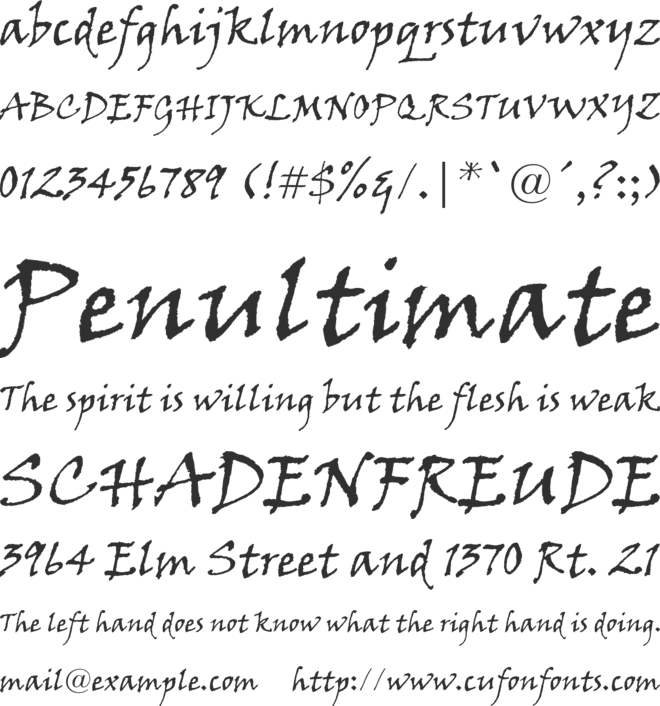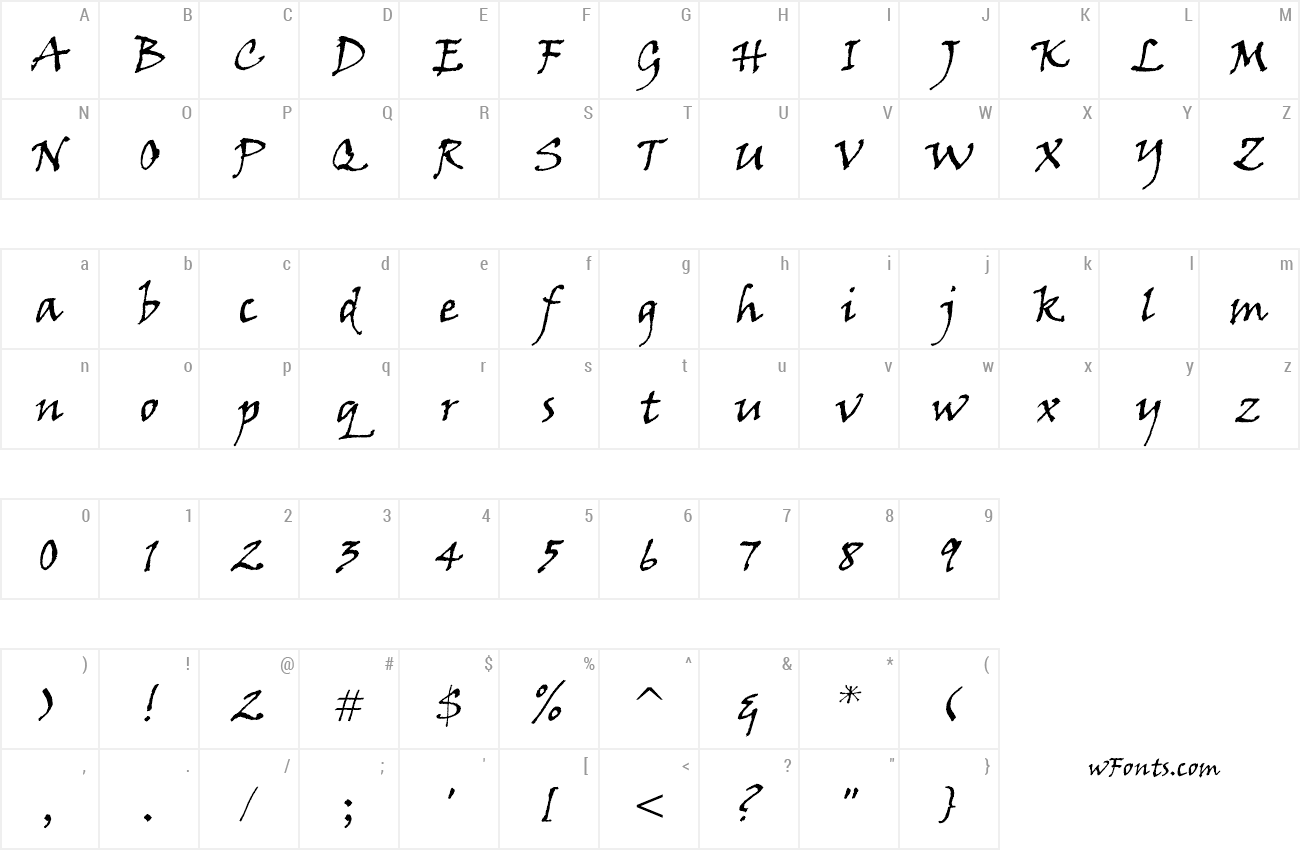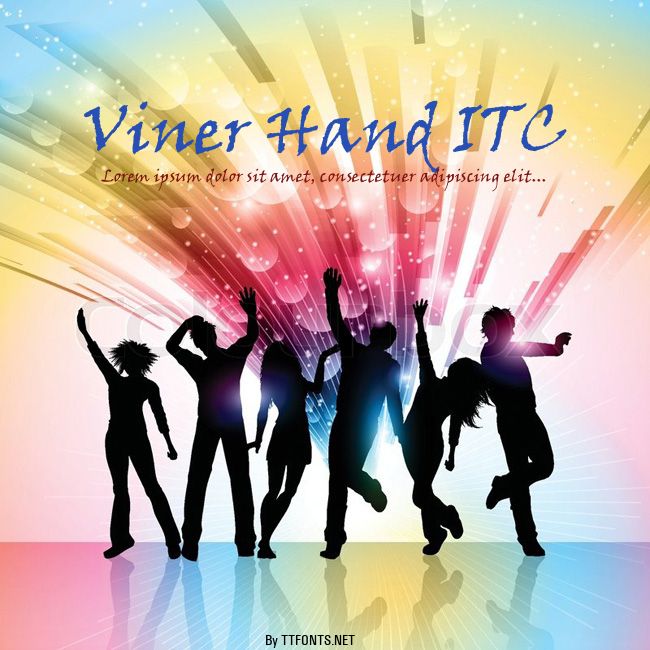
Viner Hand Itc Font
Viner Hand Itc Font - You can find more information. It has been downloaded 44 times. View sample text, character map, user rating and review for viner hand itc regular. Web introducing viner hand itc font. This is an awesome free script font available for free. Web newly added fonts. Download viner hand itc regular for free. Web viner hand itc std regular is a regular opentype font. This font is a multipurpose font and it can be used almost anywhere the user want. Is an informal script face that is based on the handwriting of british designer john viner.
1 users have given the font a rating of 5.0 out of 5. You can find more information. View sample text, character map, user rating and review for viner hand itc regular. Viner learned the craft of brush lettering. This is an awesome free script font available for free. Download viner hand itc regular for free. This font is a multipurpose font and it can be used almost anywhere the user want. Web introducing viner hand itc font. Moreover, you can embed it to your. It has been downloaded 44 times.
View sample text, character map, user rating and review for viner hand itc regular. Viner learned the craft of brush lettering. 1 users have given the font a rating of 5.0 out of 5. Download viner hand itc regular for free. Is an informal script face that is based on the handwriting of british designer john viner. Web introducing viner hand itc font. You can find more information. This font is a multipurpose font and it can be used almost anywhere the user want. Web viner hand itc std regular is a regular opentype font. Web newly added fonts.
Web newly added fonts. Is an informal script face that is based on the handwriting of british designer john viner. This font is a multipurpose font and it can be used almost anywhere the user want. Download viner hand itc regular for free. It has been downloaded 44 times.
You can find more information. View sample text, character map, user rating and review for viner hand itc regular. Download viner hand itc regular for free. Viner learned the craft of brush lettering. Is an informal script face that is based on the handwriting of british designer john viner.
Identifont ITC Viner Hand
1 users have given the font a rating of 5.0 out of 5. Is an informal script face that is based on the handwriting of british designer john viner. This font is a multipurpose font and it can be used almost anywhere the user want. Web newly added fonts. Web introducing viner hand itc font.
Viner Hand ITC Regular truetype font
Moreover, you can embed it to your. Download viner hand itc regular for free. View sample text, character map, user rating and review for viner hand itc regular. Web introducing viner hand itc font. Web newly added fonts.
Viner Hand ITC Regular Download For Free, View Sample Text, Rating
View sample text, character map, user rating and review for viner hand itc regular. Moreover, you can embed it to your. 1 users have given the font a rating of 5.0 out of 5. Download viner hand itc regular for free. It has been downloaded 44 times.
View Sample Text, Character Map, User Rating And Review For Viner Hand Itc Regular.
Is an informal script face that is based on the handwriting of british designer john viner. Web introducing viner hand itc font. Web newly added fonts. Download viner hand itc regular for free.
Viner learned the craft of brush lettering. This is an awesome free script font available for free.